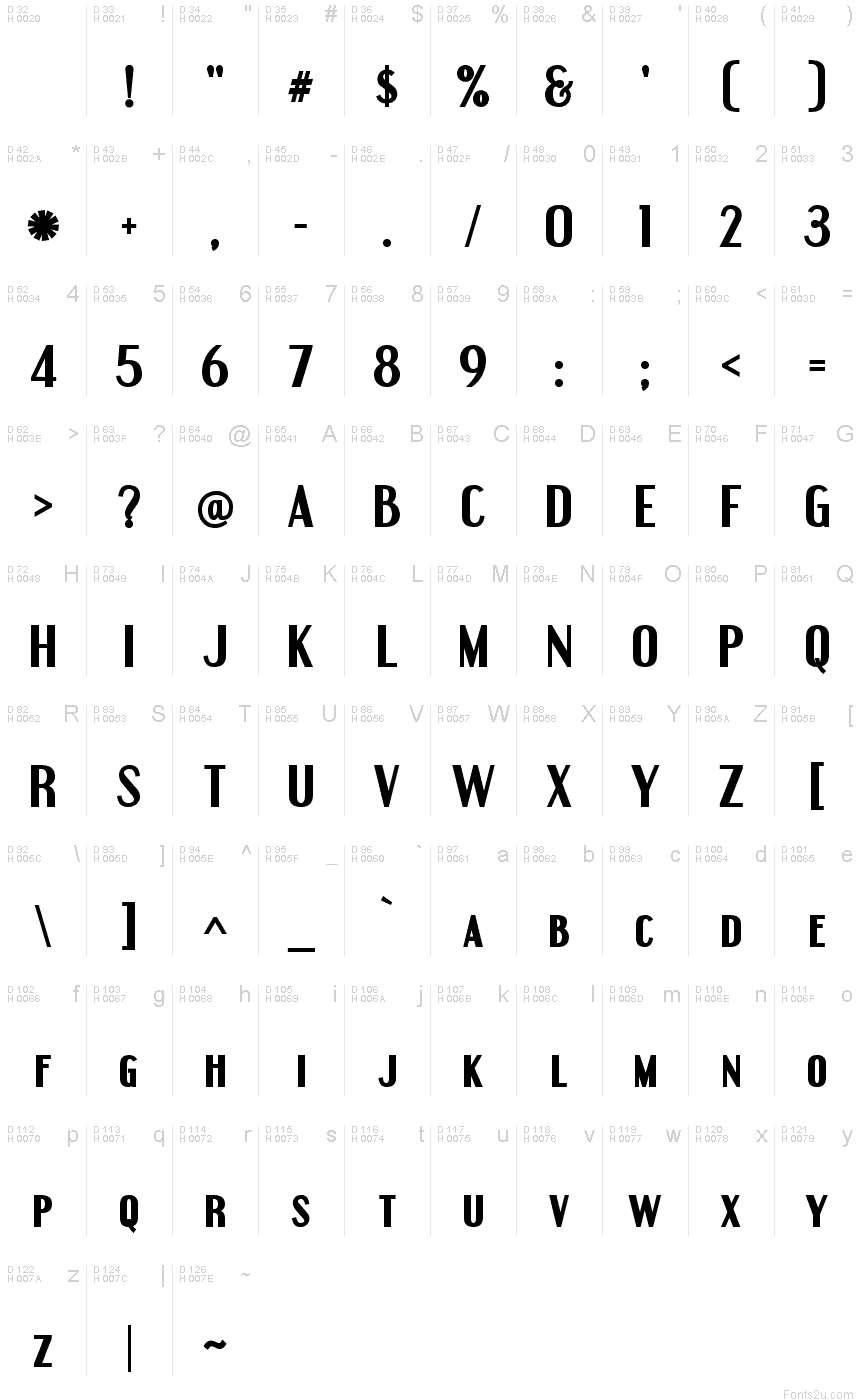
Engebrechtre Bold
Engebrechtre Bold font by Ray Larabie is a free sans serif typeface with a strikingly tall, compressed stance that pulls the eye upward. Its narrow columns, flat tops, and squared curves create a tense, industrial rhythm—like stacked steel beams or a neon marquee tightened to the limit. The Engebrechtre family’s bold weight hits hard in a small footprint, making big statements without eating horizontal space.
Using Engebrechtre Bold, headlines feel urgent and cinematic, great for posters, game titles, sci‑fi branding, tech packaging, and bold website hero text. This free font excels when set large, where its tight architecture really shows; balance it with a simple, open sans like a geometric grotesque for body copy so the tall letters stay the star.